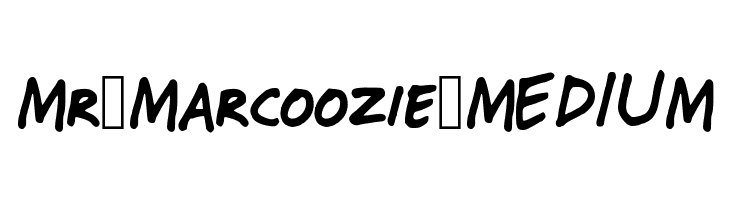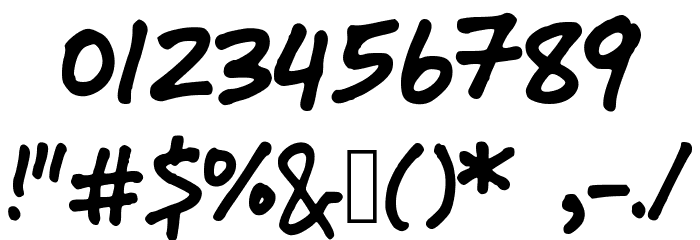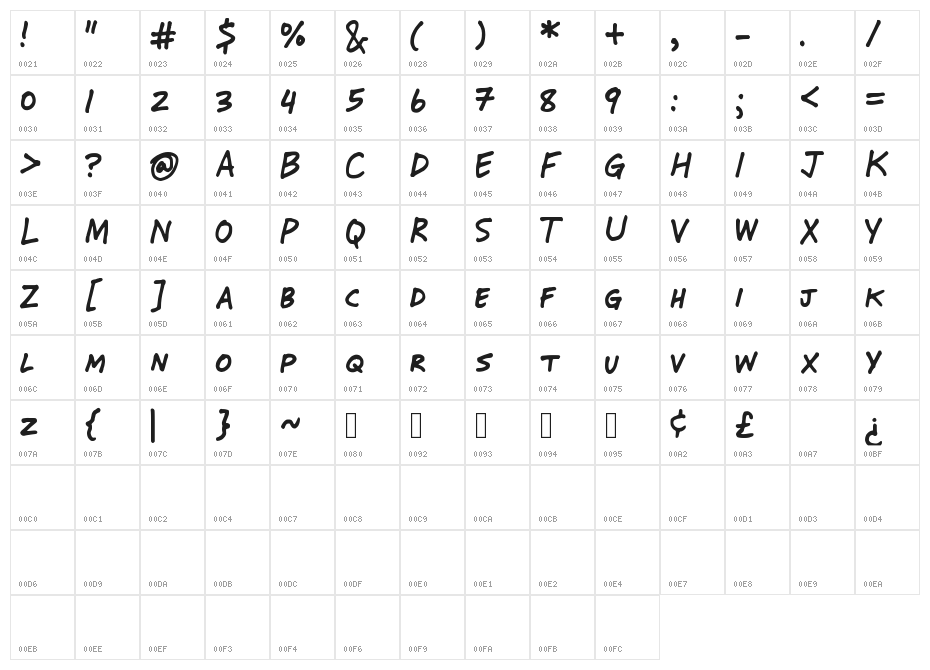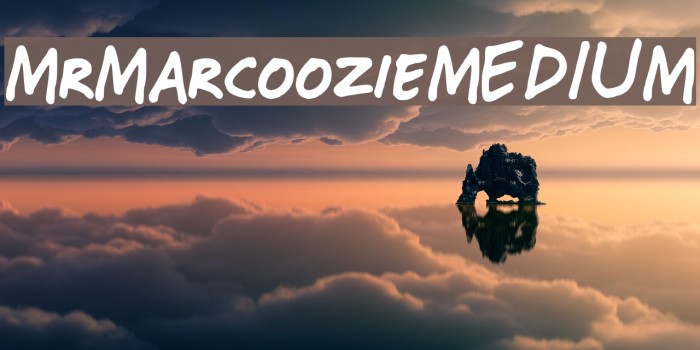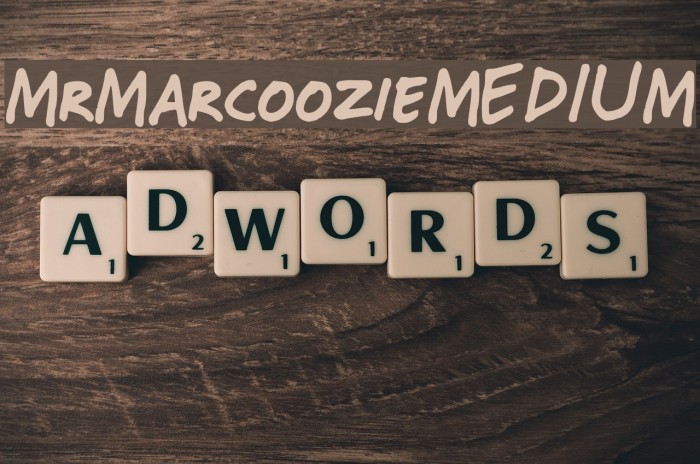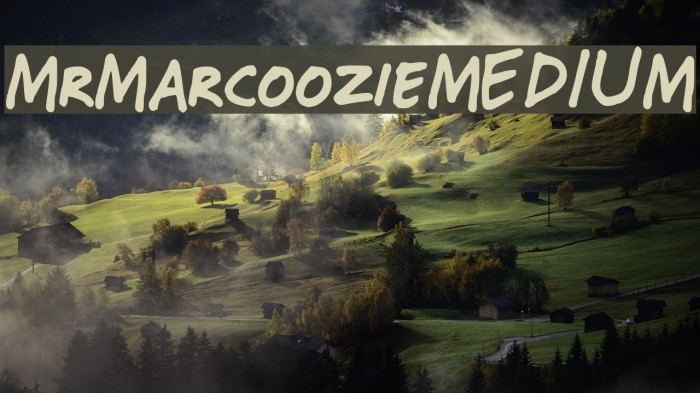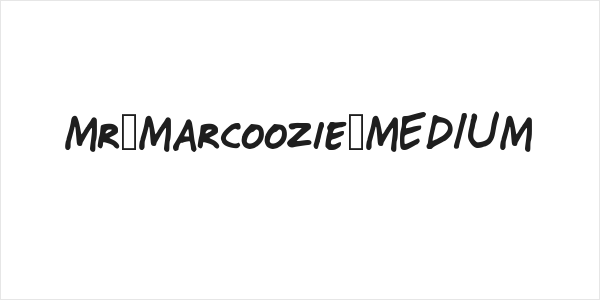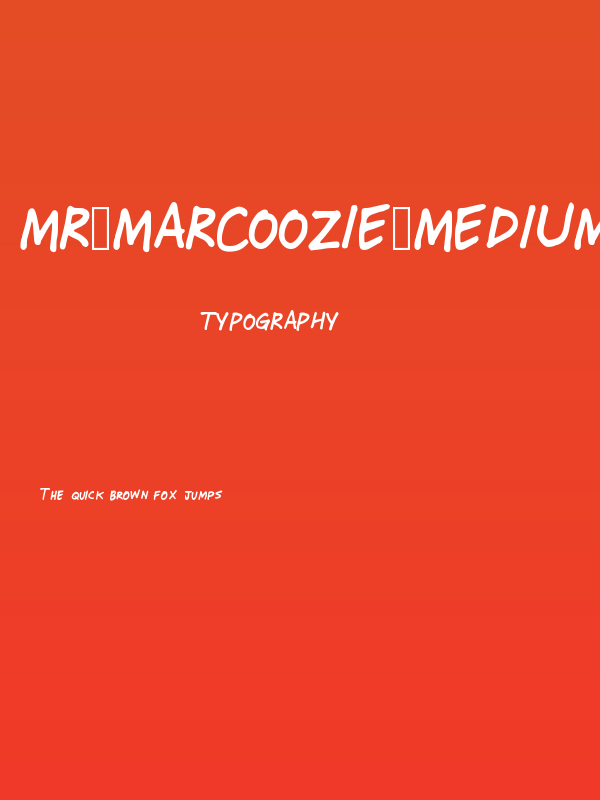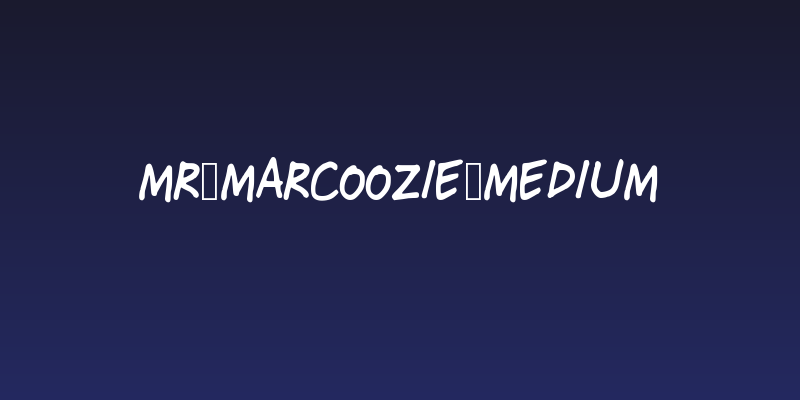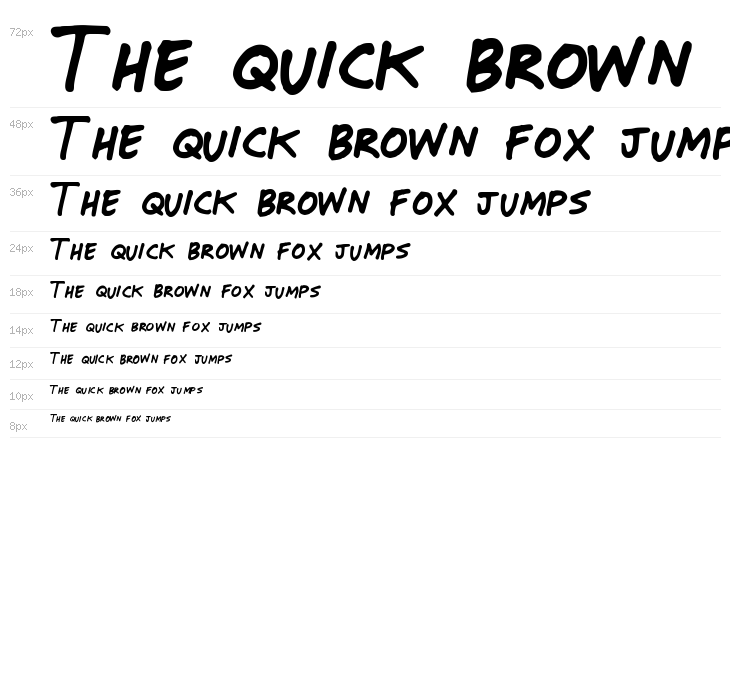
Mr_Marcoozie_MEDIUM Font
Mr_Marcoozie_MEDIUM Description
This font features a playful and energetic handwritten style, characterized by its bold and slightly slanted letterforms. The strokes are thick and consistent, giving the font a strong presence. The uppercase and lowercase letters maintain a casual, informal appearance, with rounded edges and a slight tilt that adds to its dynamic feel. The numbers and special characters are designed to match the overall style, ensuring a cohesive look across all elements. This font's lively and approachable design makes it suitable for projects that require a personal touch.
| Proposed Projects | Ideal for greeting cards, children's books, playful branding, and social media graphics. |